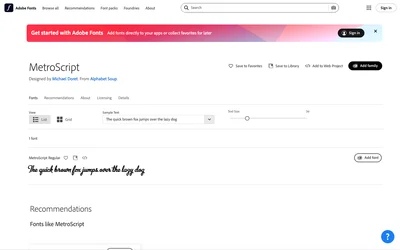
Metroscript vs Pacifico
Pacifico is a popular open-source alternative to Metroscript's script design. At 70% similarity, Pacifico delivers a playful, friendly aesthetic. Compare which works better for branding and packaging projects.
| Feature | Metroscript | Pacifico |
| Classification | display | display |
| Weights | Multiple | 400 |
| Italics | Yes | No |
| Language Support | latin, latin-extended | latin, latin-extended, vietnamese, cyrillic |
Consider: Metroscript
- Shares Metroscript's expressive character
- Supports 4 scripts including vietnamese and cyrillic
- Delivers a playful, friendly, creative aesthetic
- Popular in education-academia and healthcare-medical design
- Versatile enough to replace 10+ premium fonts
Recommended: Pacifico
- Designed specifically for branding and packaging